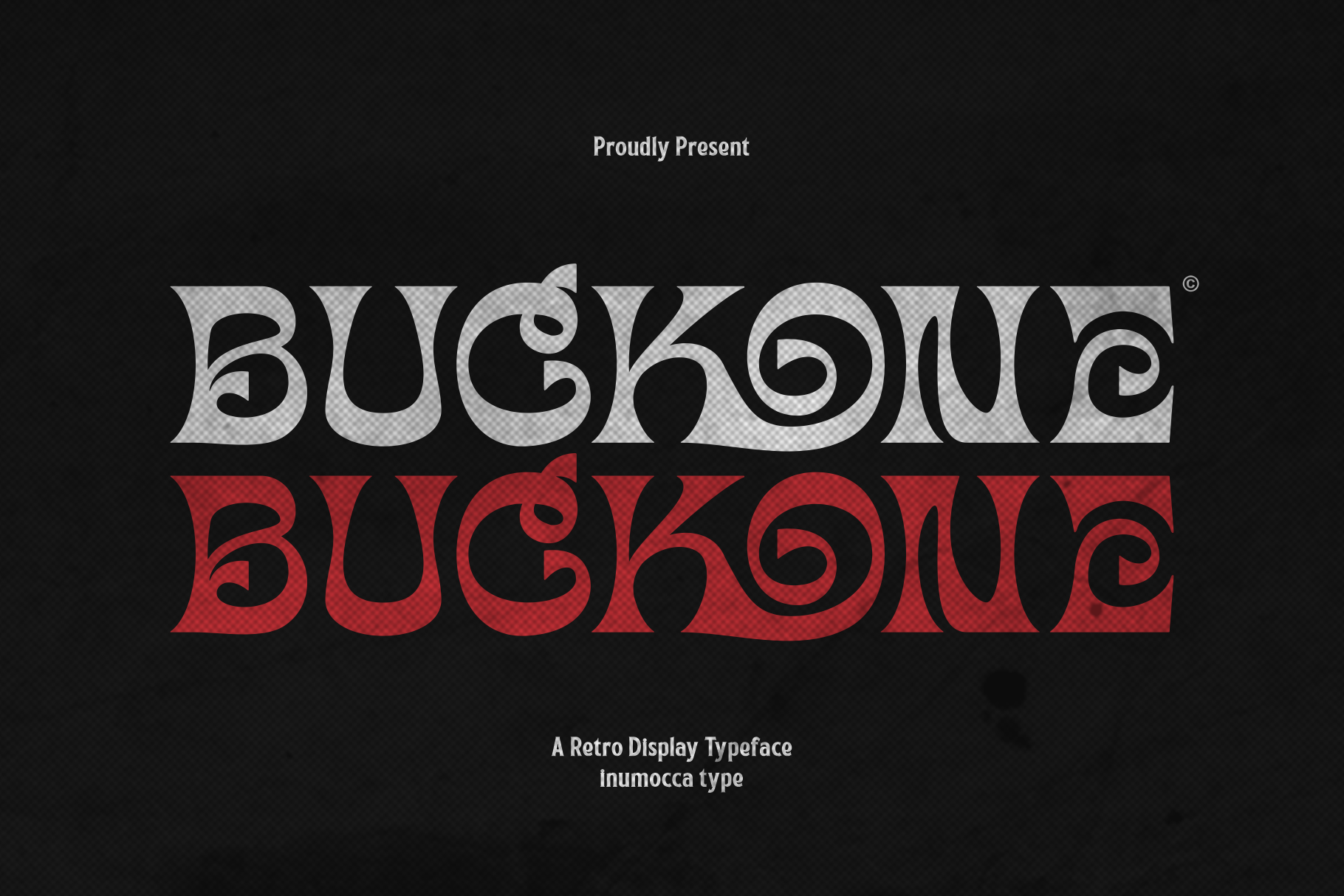
Buck One
Buck One is a font family published by inumoccatype.
BuckOne is A Retro Display typeface. Reverse-Contrast letterform kinds unique shape,Retro vibe and psychedelic atmosphere. The Typeface comes with Stylistic Set and Ligature Exellent typeface to use for covering your Project, like Branding, Movie Title, Headline Letter, Bookcover or Book Content, Magazine cover, Poster, Quotes Lettering, Logos, and more your project design.
• Unique glyphs
• Multilingual Characters Support
• UPPERCASE
• Lowercase
• Numeric
• Symbol
• Punctuation Character
• Stylistic Set (ss01, ss02)
• Ligature